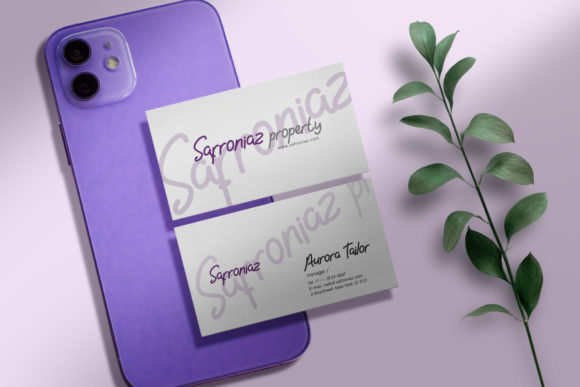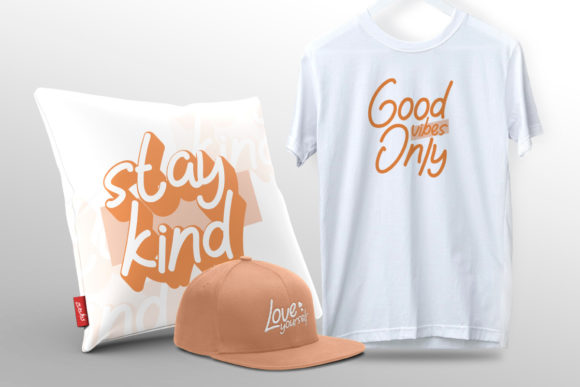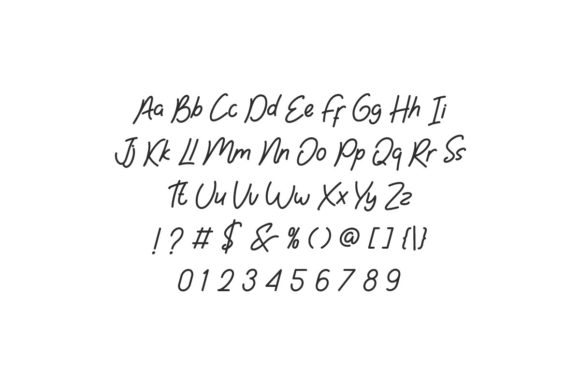
Introduction to Share Now Font
As a designer, there’s nothing quite like the thrill of bringing a creative idea to life. The moment when all the pieces come together, and your vision starts to take shape, is truly magical. But what if you had the perfect tool to elevate your designs and make them truly special?
Enter the Share Now Font, a stunning script font that’s sure to add a touch of elegance to any project. Whether you’re working on a high-quality design for Instagram or creating a custom calligraphy script for a DIY project, this font is the perfect resource to help you achieve your creative vision.
Key Features of Share Now Font
- Transparent background, allowing for easy layering and customization.
- Includes a range of weights and styles to suit different design needs.
- Designed to be scalable, with a resolution of 300 DPI for crisp and clear display at various sizes.
- Perfect for designers, artists, and creatives working on various projects, from digital art to print materials.
Honest Review: Share Now Font
I recently stumbled upon the Share Now Font and decided to give it a try for my latest design project. As a designer, I’m always on the lookout for high-quality design resources that can elevate my work. The Share Now Font did not disappoint.
What works well: ✨ The font is modern and clean, making it perfect for creative projects that require a sleek and professional look. I loved the transparent background, which allowed me to easily overlay the font on top of images without any issues. The free download option was also a major plus, as it saved me time and money.
Key Features:
- Modern and clean design
- Perfect for creative projects
However, there are a few limitations: ⚠️ The font is only available in a limited number of weights and styles, which might be a concern for designers who need more flexibility. Additionally, the font’s compatibility with certain software and systems might be a bit hit-or-miss.
Overall, I was impressed with the Share Now Font and would definitely recommend it to fellow designers. While it may have some limitations, its high quality and free download option make it a valuable design resource.
Some common use cases for the Share Now Font include creating social media graphics, designing logos, and developing branding materials. Its high quality and versatility make it an excellent choice for any creative project.
To get the most out of the Share Now Font, experiment with different font sizes, colors, and combinations. This will help you unlock its full potential and create unique design elements that stand out.
Comparison to Share Now Font: Montserrat has a more modern and sleek feel compared to Share Now Font, which is more playful and rounded. Montserrat is also more versatile and can be used in a wider range of design projects.